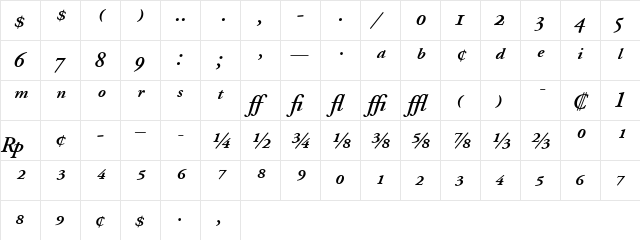
AGaramondExp Bold Italic
Design Context for AGaramondExp Typeface
AGaramondExp is a composed and adaptable typeface that performs quietly and consistently across a wide range of design contexts. The slanted form adds forward momentum and visual energy. The heavy weight commands attention and anchors typographic hierarchies.
Pro Tip: Try AGaramondExp for annotation and caption copy alongside an upright companion — the contrast in angle creates a dynamic but ordered typographic system.